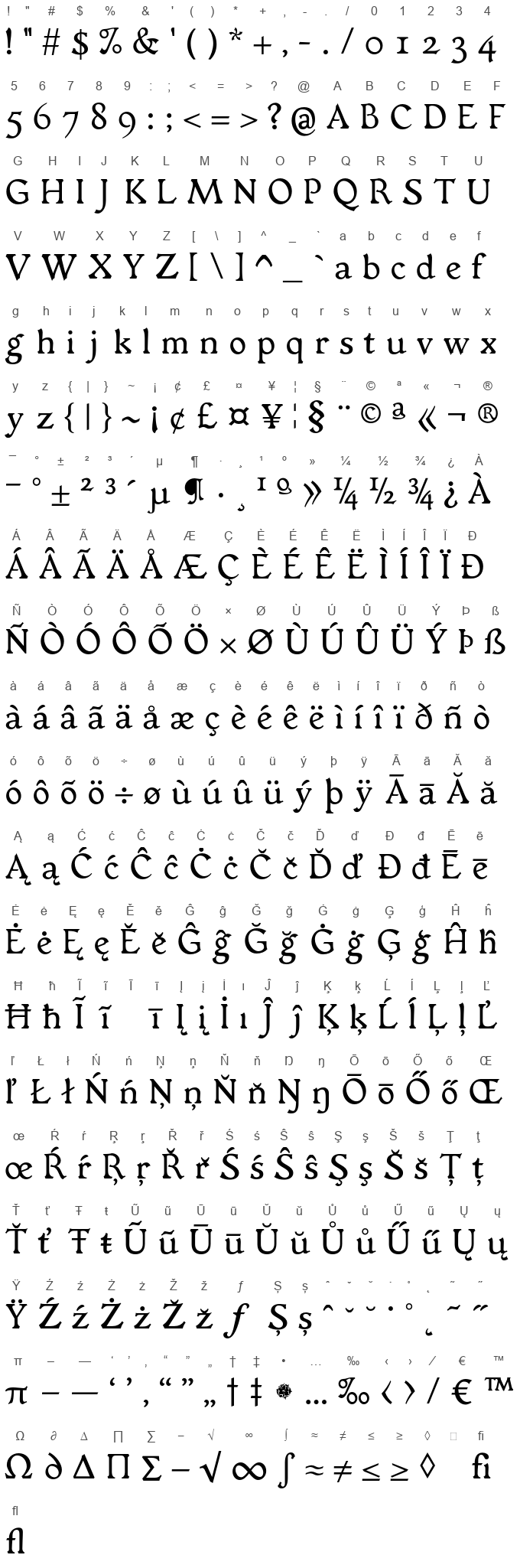
The Datura font, with its enchanting and somewhat enigmatic presence, embodies a harmonious blend of classic elegance and contemporary flair. At its core, Datura channels a sense of mystique, reminiscent of ancient scripts, yet it projects a modern sophistication that makes it highly versatile for various design endeavors. This juxtaposition of old and new imbues Datura with a unique character, making it a standout choice for designers seeking a font with depth and personality.
Unfolding across its letterforms are flowing lines that seem to dance with an organic grace, suggesting a natural, handcrafted feel. These curves mirror the natural world, evoking the sinuous shapes of the Datura flower itself, known for its intoxicating beauty and complex symbolism. The font pays homage to this duality, offering both the allure of the flower's visual appeal and a nod to the deeper, perhaps darker, layers of meaning associated with its name.
Datura is crafted to bring a touch of sophistication to any project, whether it's the branding for a luxury product, the invitation suite for a boutique wedding, or the cover of a fantasy novel. Its readability is finely balanced with its artistic flourishes, ensuring that it maintains functionality without sacrificing its aesthetic charm. The font family might include various weights and styles, providing designers with a versatile toolkit for creating nuanced, visually engaging compositions.
In essence, Datura is not just a font but a gateway to storytelling. Its letters hold the promise of untold tales, beckoning the reader closer with a whisper of mystery. Whether employed sparingly for delicate headlines or used more liberally throughout a project, Datura manages to weave a thread of enchantment, elevating the commonplace to the extraordinary, and inviting both designer and viewer alike to explore the spaces between the lines.